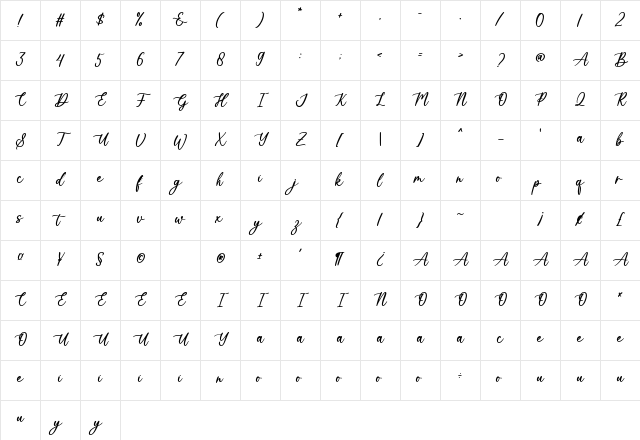
Wonderful Regular
Foundry: Graphix Line Studio
Designer: Aldi Raya Pradipta
Design Context for Wonderful
Wonderful is a composed and adaptable typeface that performs quietly and consistently across a wide range of design contexts.